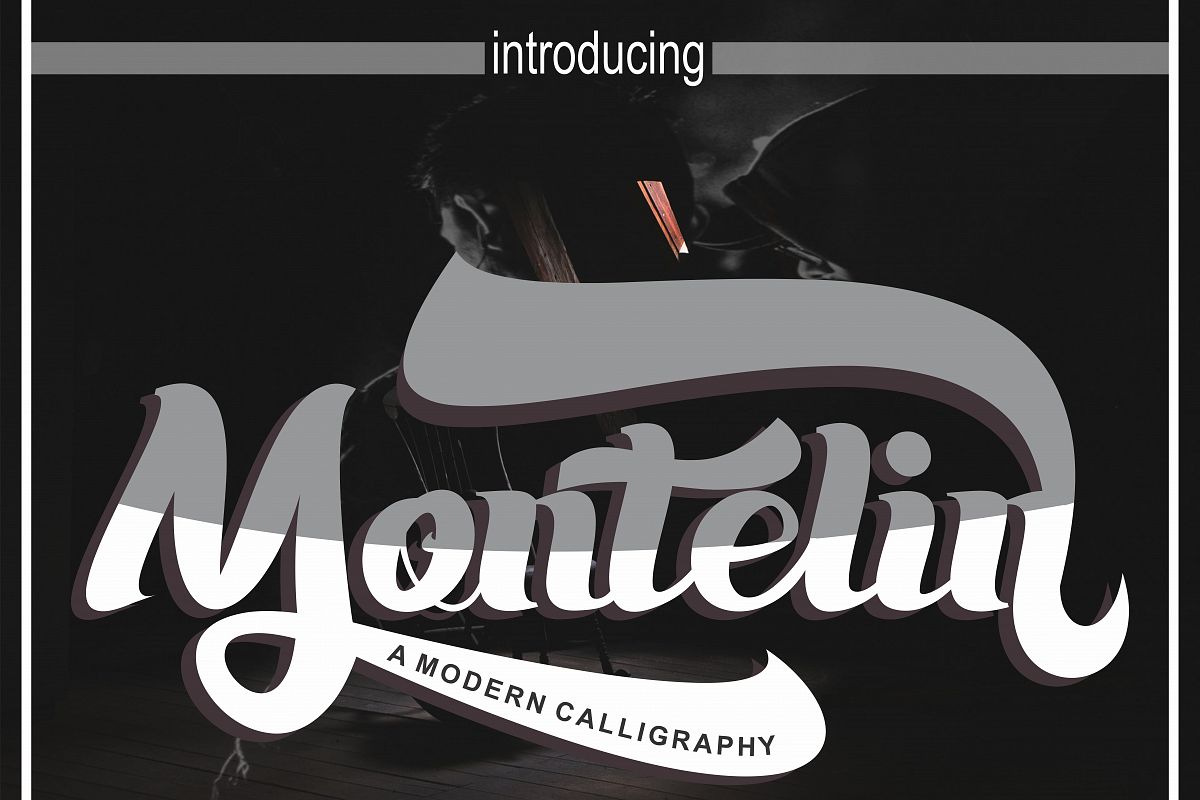
Montelin
Montelin a new fresh & modern script with a  handmade calligraphy style, decorative characters and a dancing  baseline! So beautiful on invitation like greeting cards, branding  materials, business cards, quotes, posters, and more!! The alternative  characters were divided into several Open Type features such as Swash,  Stylistic Sets, Stylistic Alternates, Contextual Alternates. The Open  Type features can be accessed by using Open Type savvy programs such as  Adobe Illustrator, Adobe InDesign, Adobe Photoshop Corel Draw X version, And Microsoft Word. And this Font has given PUA unicode (specially  coded fonts). so that all the alternate characters can easily be  accessed in full by a craftsman or designer.